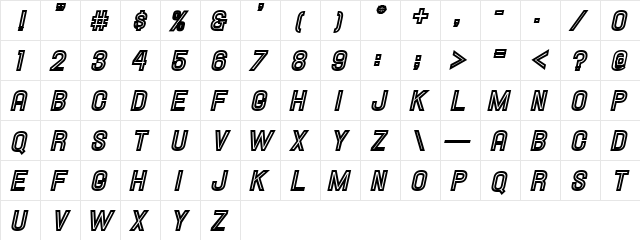
Complete Hallandale Inline Italic JL Regular glyph index. Displaying only characters natively supported by Hallandale Inline Italic JL Regular font.
Hallandale Inline Italic JL is built around its visual character rather than neutral utility - its distinctive forms are designed to make an impression at display sizes. The slanted form adds forward momentum and visual energy.
Font Pairing: Pair with a clean neutral sans-serif for body copy to let Hallandale Inline Italic JL's character lead without overwhelming the composition.
Pro Tip: Use Hallandale Inline Italic JL exclusively at display sizes - it was designed to be seen, not read at length. Let a neutral companion handle body copy.